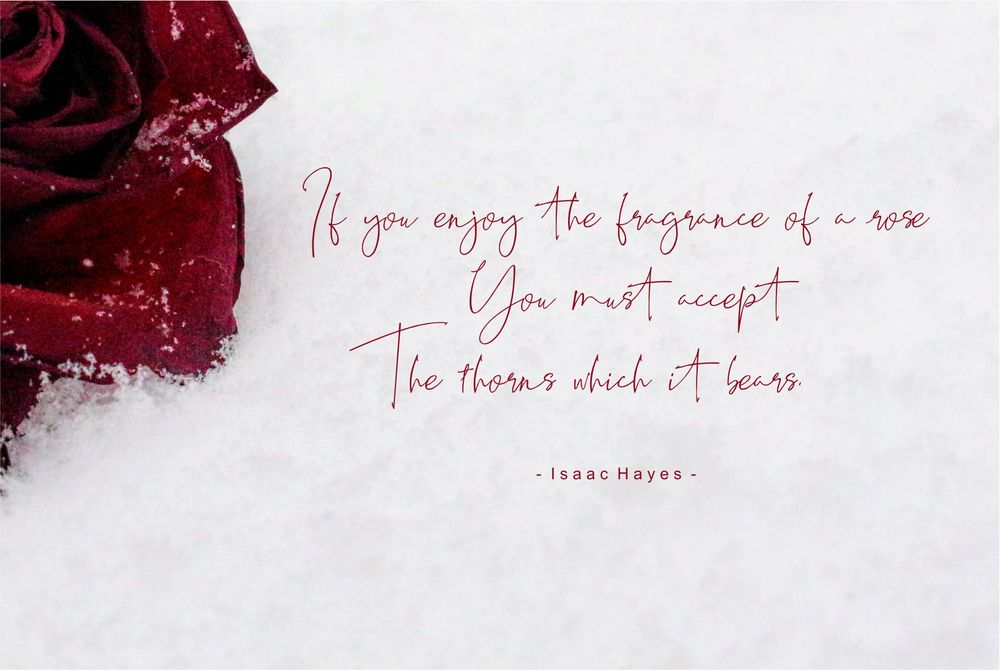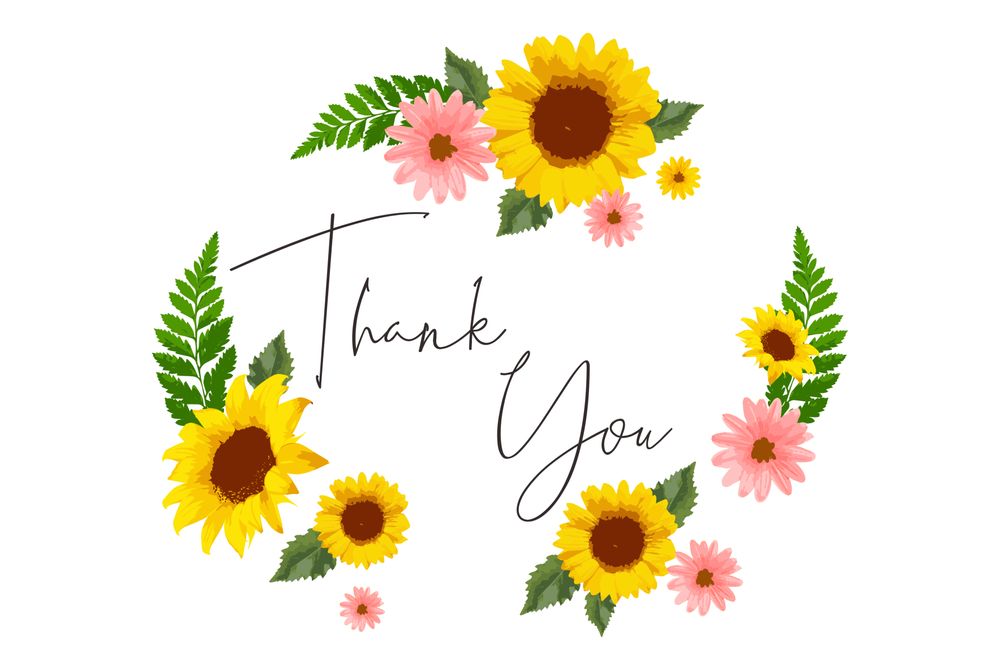
Best Deals – Signature Typeface, is a free signature script with natural flow & style created by Malindo Creative.
It contains uppercase, lowercase letters, numbers, ligatures and symbols. Best Deals Signature Typeface is perfect for logos, websites, greeting cards, posters, invitations, photography, fashion, apparel, magazine, quotes, casual catalog, book covers etc.
Font case: Uppercase, lowercase, numbers, ligatures and symbols;